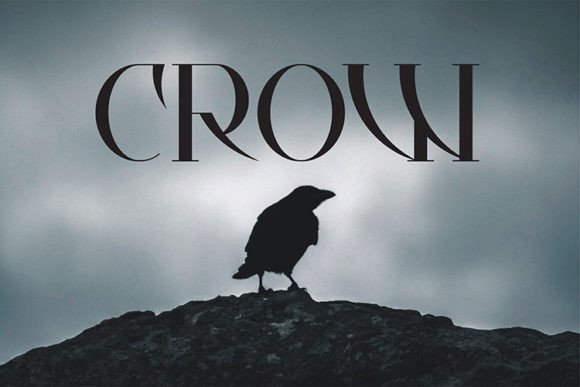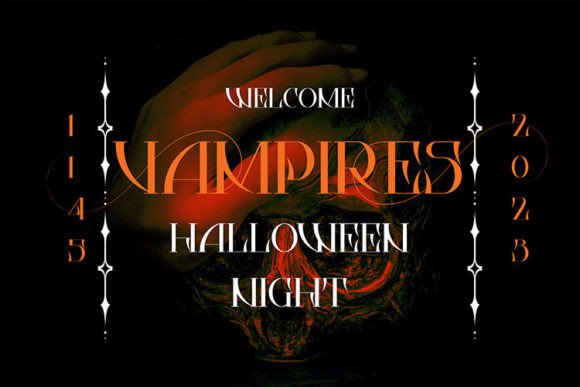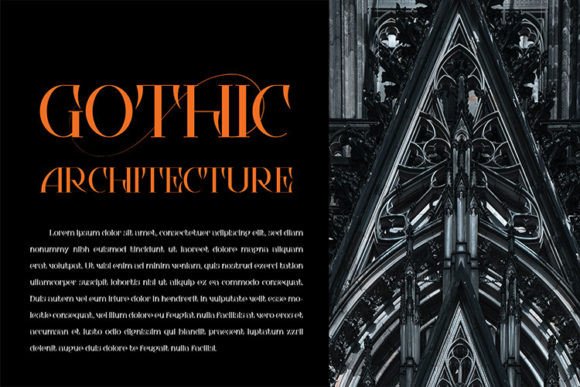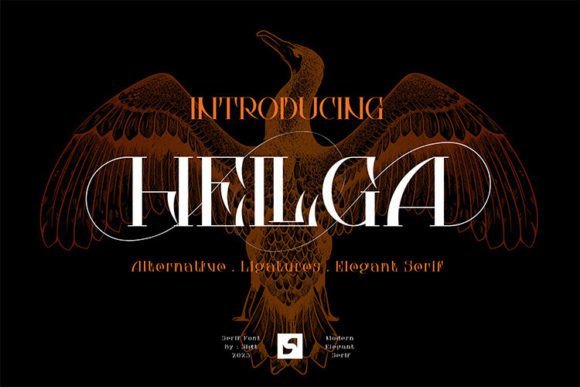
Introduction to Hellga Font
Hellga is an elegant, gothic-inspired serif, all-style caps serif with a set of alternative styles for each character that will make any presentation or design stand out.
You can use this font for various purposes such as magazines, branding, posters, or for poster invitations in a gothic style This font is PUA encoded which means you can access all of the amazing glyphs and ligatures with ease.
Hellga Font offers exceptional quality and versatility, making it a valuable addition to your design toolkit. Whether you’re creating for personal projects or commercial use, Hellga Font delivers professional results.